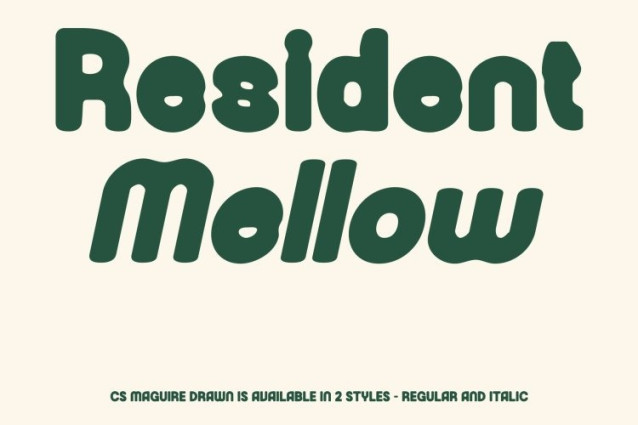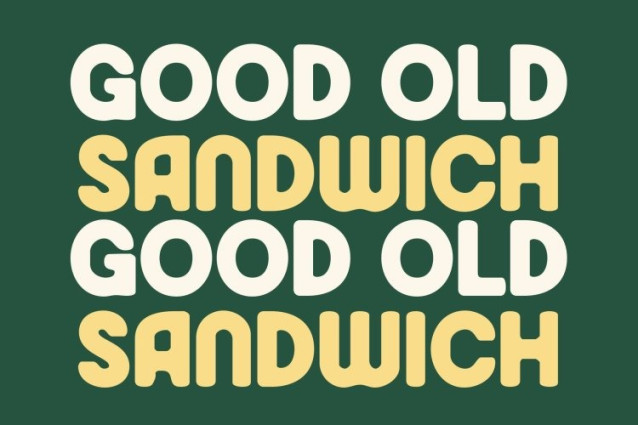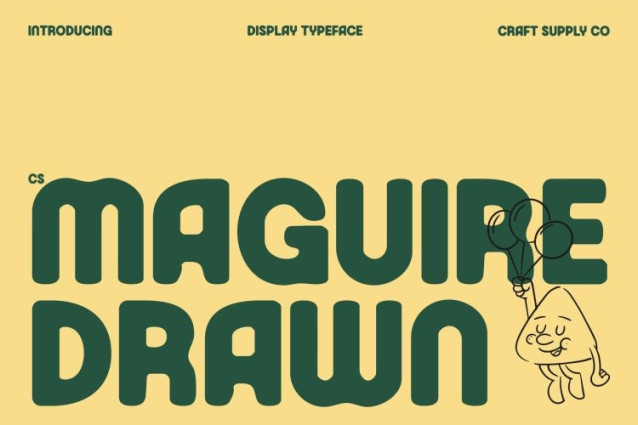
CS Maguire Drawn Font This is a bold sans serif font inspired by the visual culture of the 1990s, blending classic strength with nostalgic retro charm. Rooted in print media, advertising, and graphic styles of the era, its solid forms feel familiar, confident, and instantly impactful. The drawn effect adds subtle handcrafted character, giving the font a slightly raw, expressive edge.
Sharp, Clean, and Timeless
Built with strong, decoration-free lines and balanced proportions, delivers clarity and bold presence. Its crisp structure ensures high readability, while the drawn texture introduces warmth and personality. This balance creates a timeless look that feels both structured and lively, avoiding stiffness without losing precision.
Perfect for Iconic Branding and Display
This font excels in posters, logos, packaging, headlines, and bold brand identities. Its retro 90s vibe adds visual character without overpowering the design, making it ideal for projects that want to feel nostalgic yet modern, bold yet approachable.
Versatile Across Media and Styles
From digital branding to large-format print, adapts effortlessly. Its strong presence stands out in display use, while its clean foundation works well in minimalist layouts. It’s a versatile choice for designers seeking bold simplicity infused with retro personality and handcrafted charm.